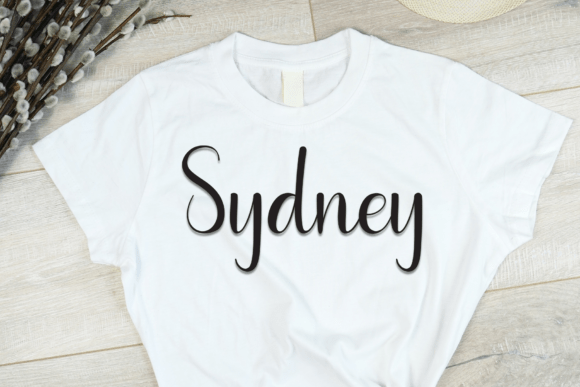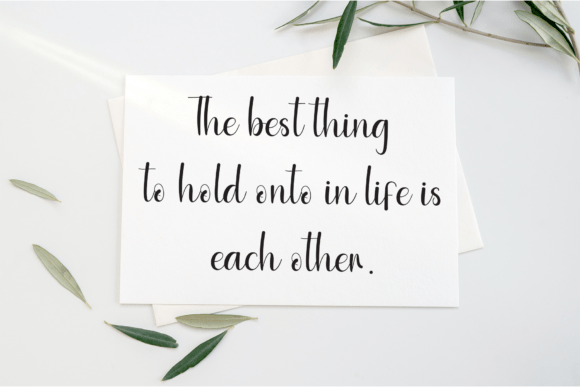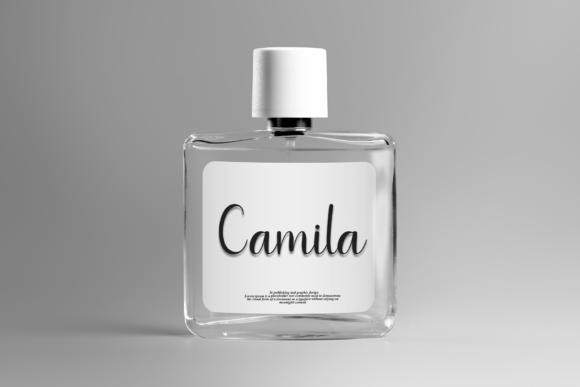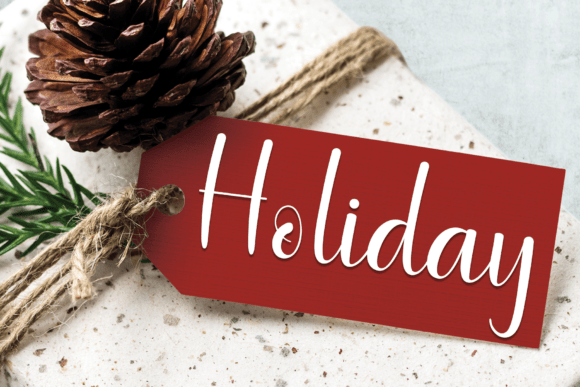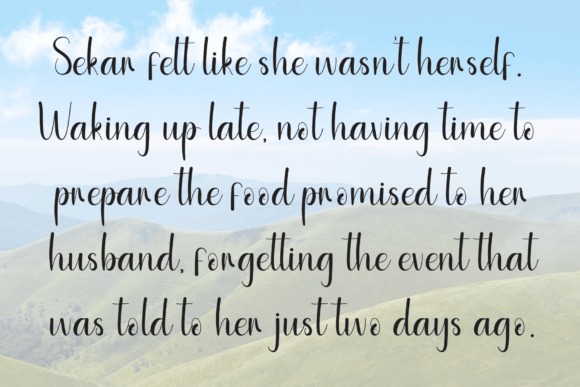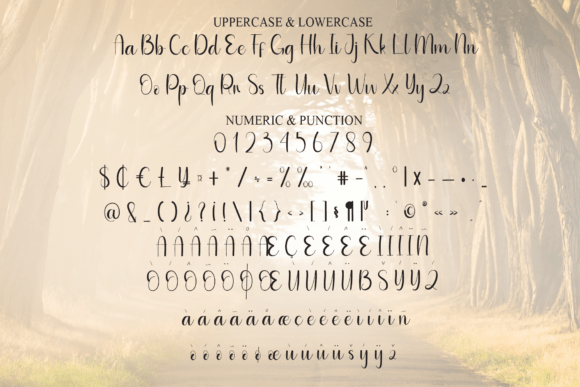
For those who crave a touch of elegance and whimsy in their designs, there’s a typeface that stands out from the crowd: the Fantasy Font. This stylish handwritten script font combines modern sophistication with a playful flair, making it the perfect addition to any project. From logos to packaging, and invitations to editorials, the Fantasy Font adds warmth, creativity, and a personal touch that sets designs apart.
As a valuable tool for designers, the Fantasy Font offers endless possibilities for self-expression and artistic freedom. Its fluid strokes and charming curves make it an ideal choice for those looking to bring a unique personality to their work.
- Unique Characteristics: Fantasy Font features a unique, hand-drawn design with intricate details and ornate flourishes, making it ideal for creating a whimsical and imaginative atmosphere in designs, such as fantasy novels, role-playing games, and children’s books.
Fantasy Font Review
Overall, I think the Fantasy Font is a great choice for projects that require a touch of whimsy and magic. ✨ It has a unique, hand-drawn feel that’s perfect for fantasy novels, RPG games, or any other project that needs a sense of wonder.
The font’s character set is quite extensive, and it includes a wide range of ligatures and ornaments that can add an extra layer of depth to your designs. ✨ I also appreciate the fact that it comes in both regular and bold weights, which gives you more flexibility when it comes to typography.
- Unique, hand-drawn feel that’s perfect for fantasy projects
- Extensive character set with ligatures and ornaments
- Available in regular and bold weights
- Great for projects that need a touch of whimsy and magic
However, there are a few limitations to the Fantasy Font that I think are worth noting. ⚠️ For one, it’s not the most readable font at smaller sizes, which can make it difficult to use in certain contexts. Additionally, some of the characters may not display properly in certain operating systems or browsers.
- Not the most readable at smaller sizes
- May not display properly in certain operating systems or browsers
Overall, I think the Fantasy Font is a solid choice for projects that need a touch of fantasy and magic. With a little creativity and experimentation, I think you can overcome its limitations and create some truly amazing designs.
Tips for Getting the Most Out of Fantasy Font
For a dramatic effect, use Fantasy Font in combination with bold or italic styles. To add depth, use it in conjunction with layering or shadows. Experiment with different font sizes to create visual interest.
Fantasy Font is ideal for fantasy-themed projects, such as game titles, book covers, or character designs. It can also be used in creative marketing campaigns, like advertisements or social media posts, to add a touch of whimsy and magic.